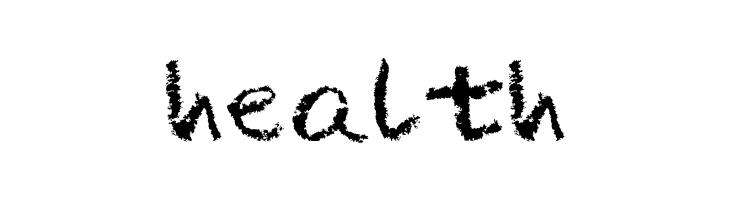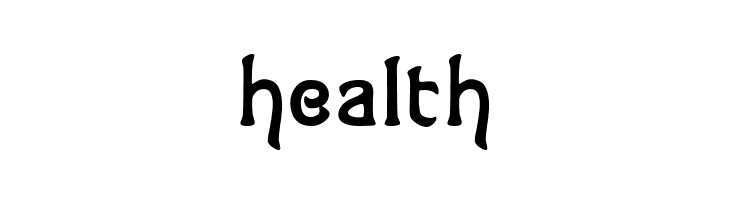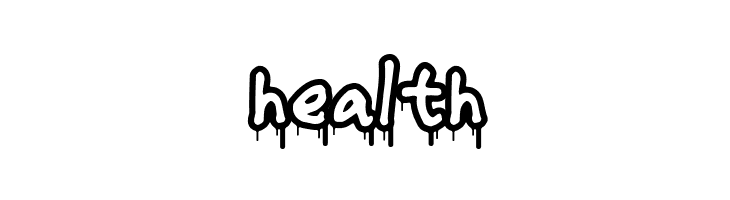
A playful handwritten font with smooth, rounded strokes and a casual style.
An elegant and decorative script font with intricate swirls and flourishes.
A playful, crayon-like font with bold, textured strokes.
A modern, geometric font with clean lines and balanced spacing.
A whimsical, hand-drawn font with playful and irregular shapes.
A playful, bold outline font with a cartoonish style.
A playful, bold handwritten font with a casual and friendly style.
A bold, dripping font with a playful, graffiti-like style.